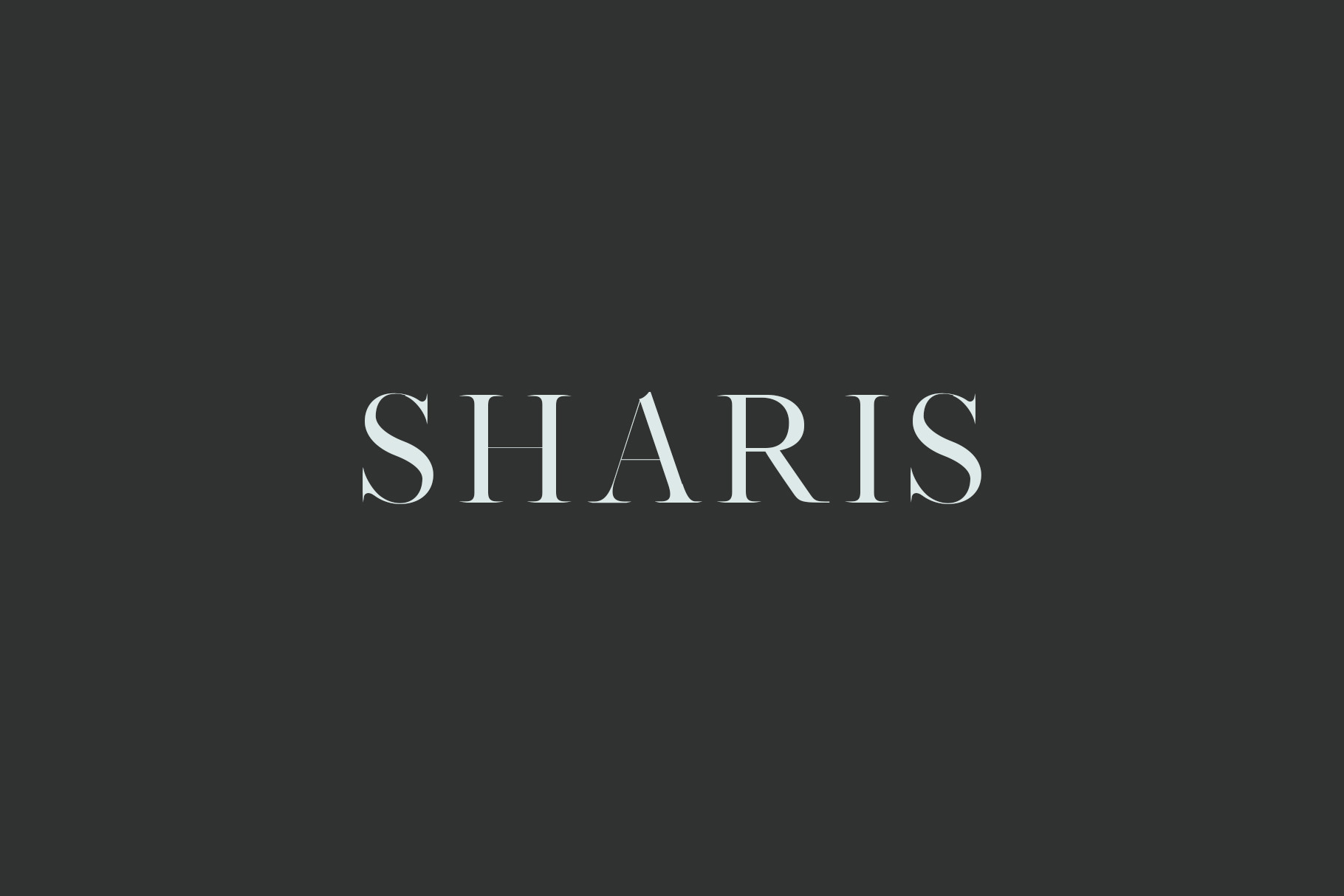
Sharis Serif Typeface is a unique simple and clean serif font family, which contains 7 weights and Sharis features unique and modern serif look and feel. It is perfect for gorgeous logos, titles, web layouts, fashion magazine and branding. It looks gorgeous in all caps with a wide-set spacing if you want to try a classy look, or beautiful on its own in capital and lowercase letters for something completely timeless.